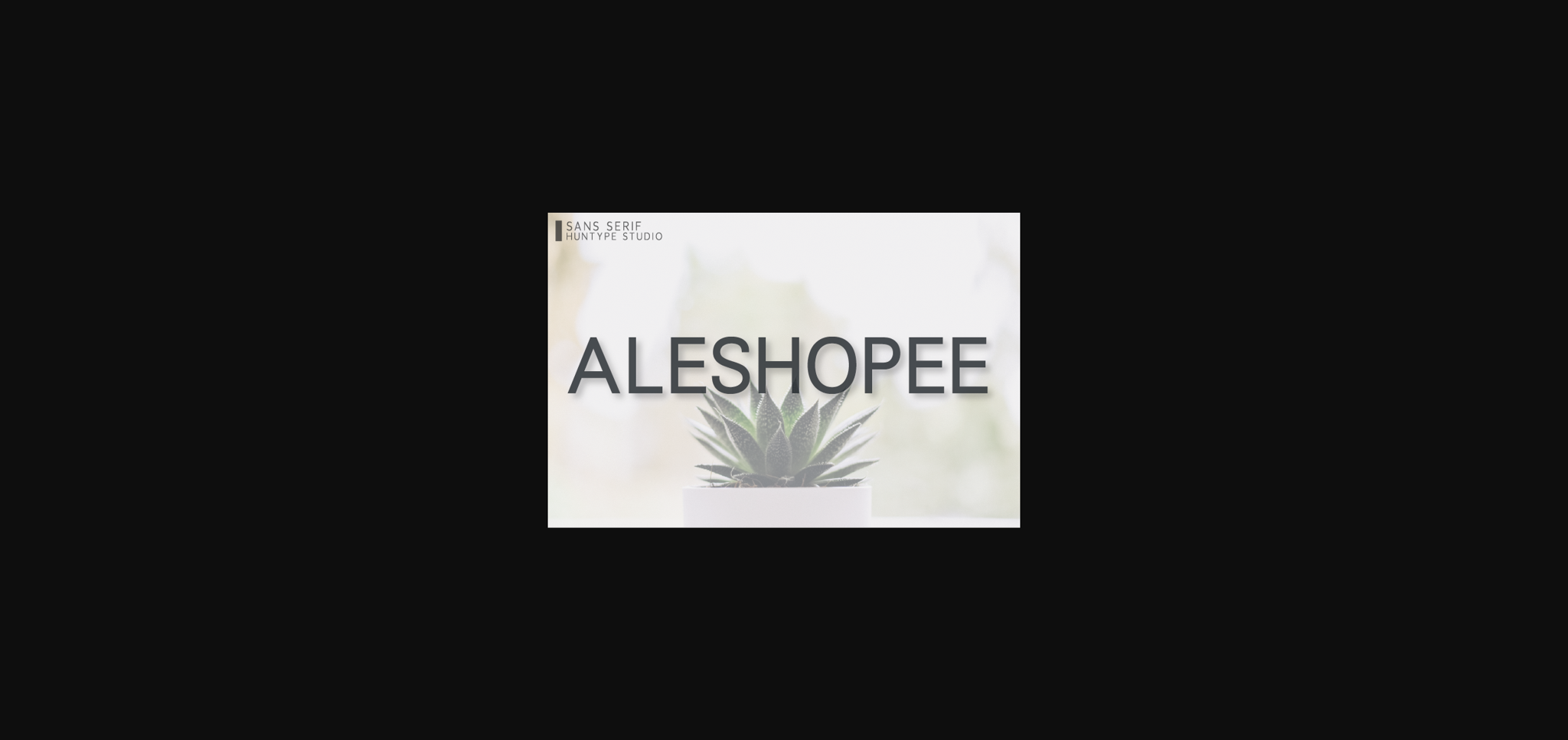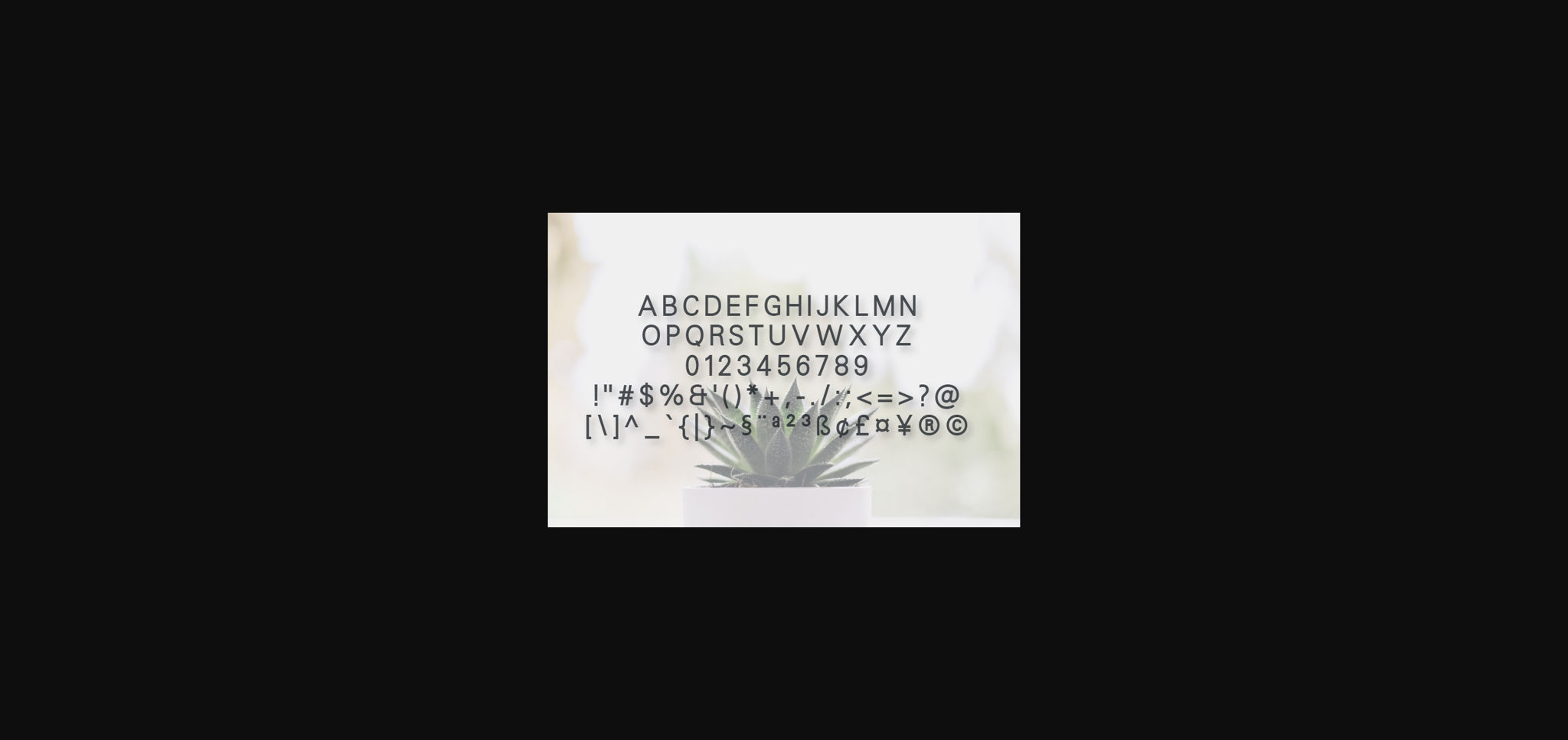
Aleshopee Font
About Aleshopee Font
Aleshopee is a simple, neat lettered sans serif font. Its versatile style results from its clean feel and it is the perfect fit for both formal and non-formal designs.